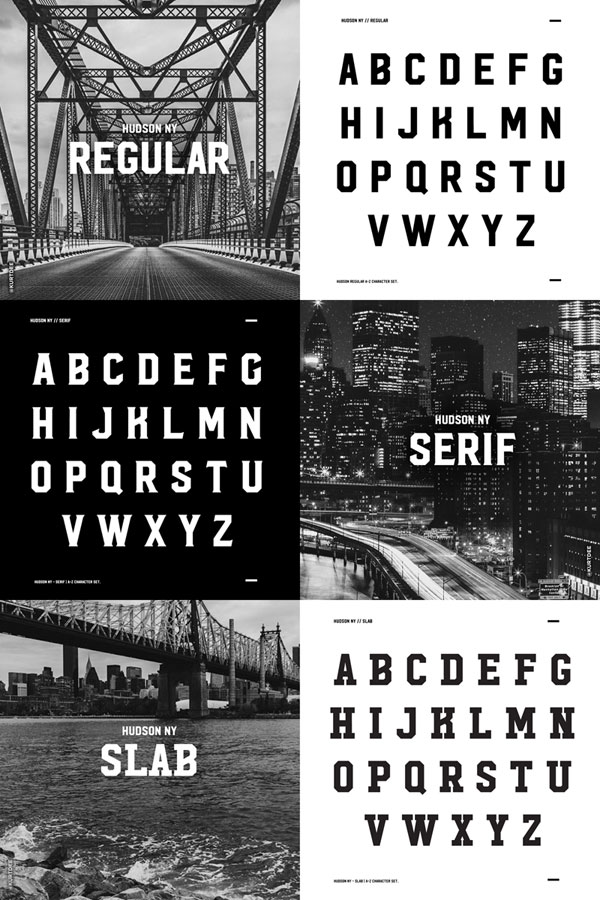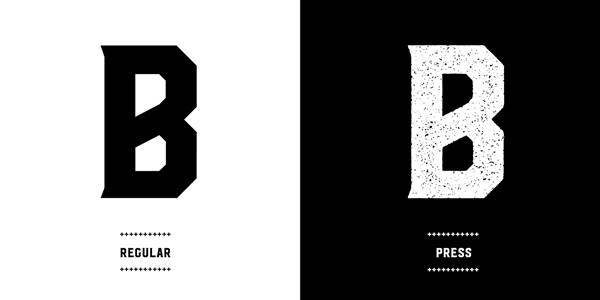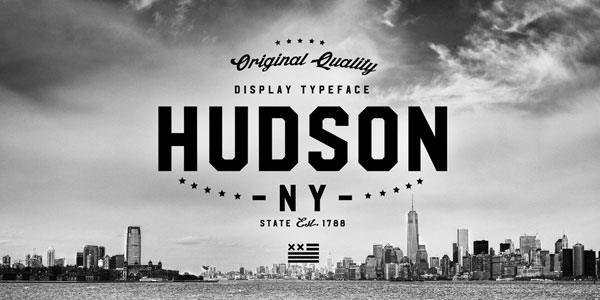
Hudson NY, strong display fonts by Andrew Footit.
Hudson NY is a new release from South African designer Andrew Footit. This display font collection consists of 3 type versions (Regular, Serif, and Slab) plus an additional ‘Press’ style for each version. That makes a total of 6 fonts. All 3 versions share the same basic design, which is based on a strong and bold geometry. The Hudson NY family is an advancement of Andrew Footit’s Roper font. Hudson NY’s design draws inspiration from typical College and American sports typography. Andrew Footit’s goal was to create a typeface that combines this authentic ‘American’ look with a modern touch.
The Hudson NY font family works great for a variety of display use, whether for printed products or on screen. That’s why the whole family is available as both standard desktop font and webfont. All photos of New York City in this presentation were taken by Kurt Dee (Instagram @kurtdee). For further information on this new display typeface, please follow the link below.